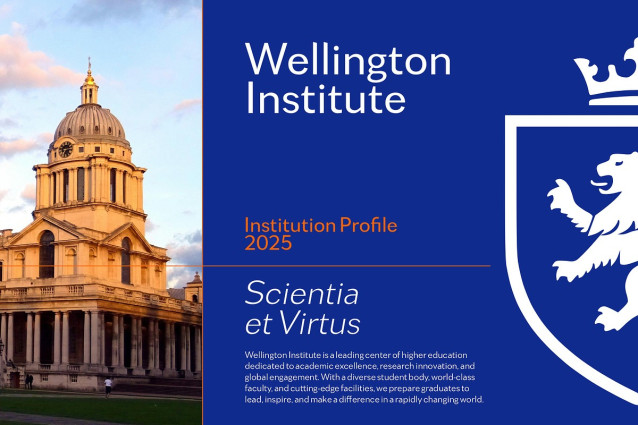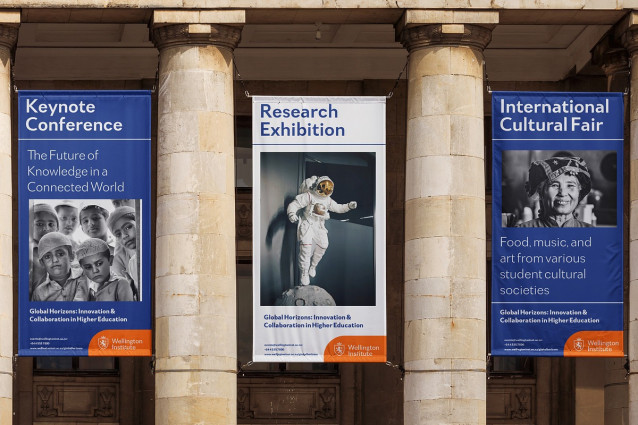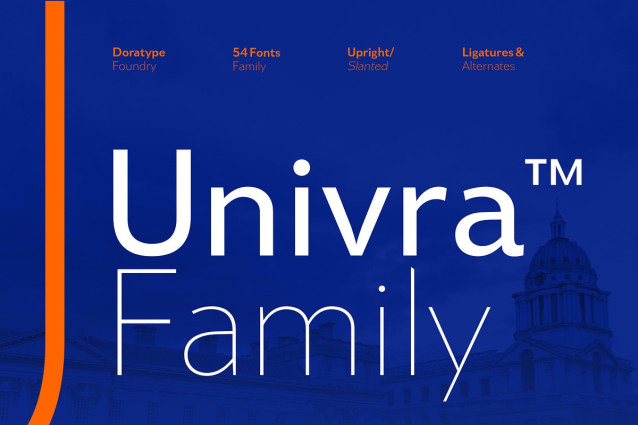
Univra Font Family
Univra Font Family is a modern sans serif typeface designed in a clean, minimalist and versatile style. With bold, serif letters, Univra offers clear readability at a variety of sizes, making it ideal for both digital and print design needs. With 54 styles, from bold to bold, as well as upright and italic options, this font family gives designers complete flexibility to create a clean and consistent visual hierarchy. Univra’s clarity of form and proportions makes it suitable for branding, visual identity, editorial and modern interface design.
In addition to a wide range of weights and styles, the Univra Family is complemented by ligatures and alternates, allowing users to explore unique and expressive letter layouts. The sans serif characters are modern with precise geometric details, while still maintaining a friendly and professional feel. The combination of elegant design and advanced typographic features makes the Univra Family the perfect choice for designers looking for functional and aesthetic typefaces for a variety of creative needs.